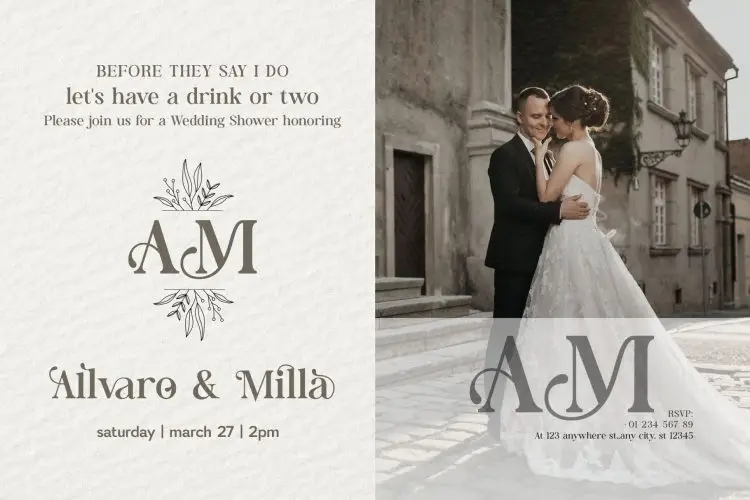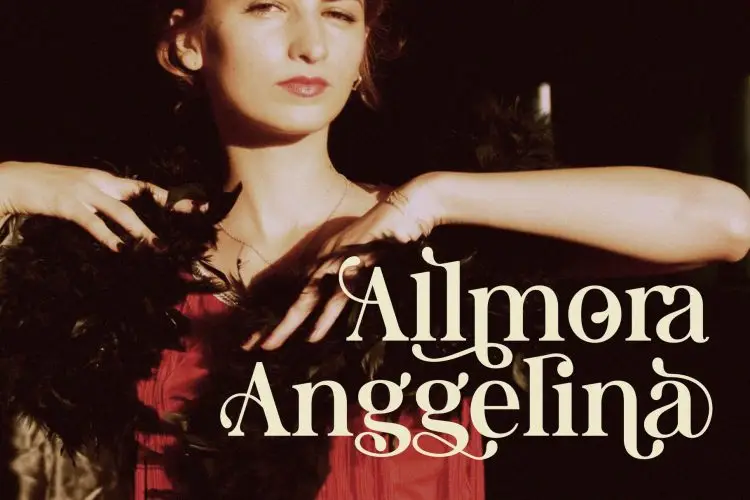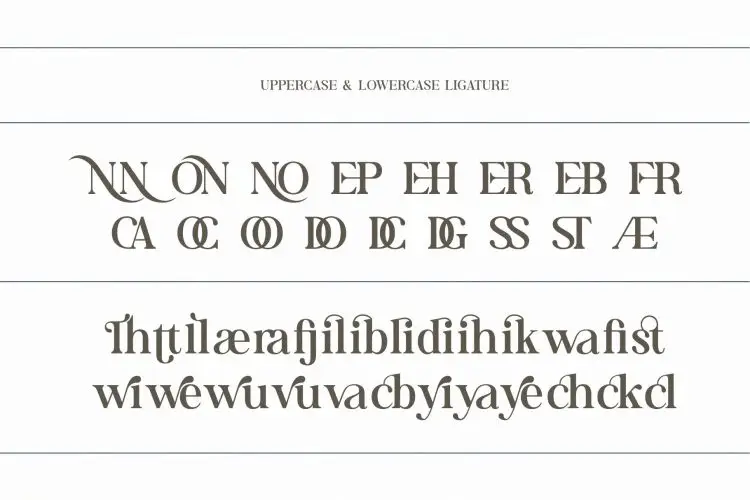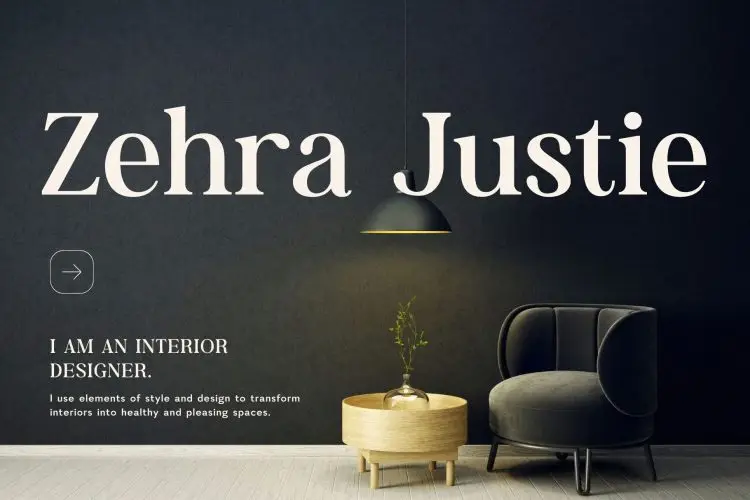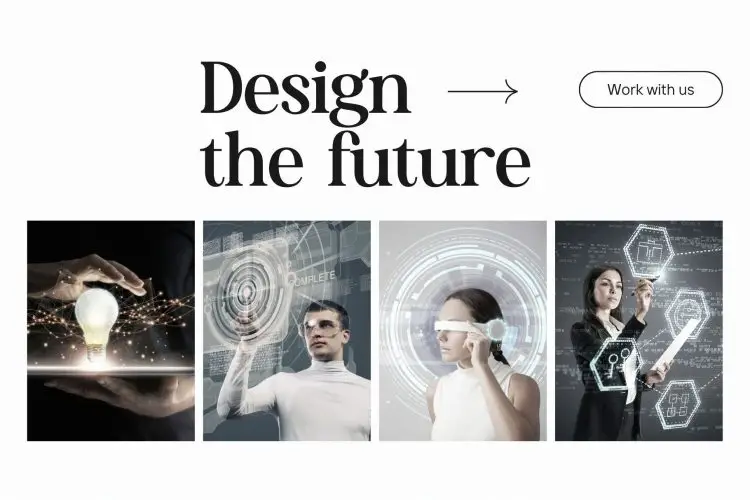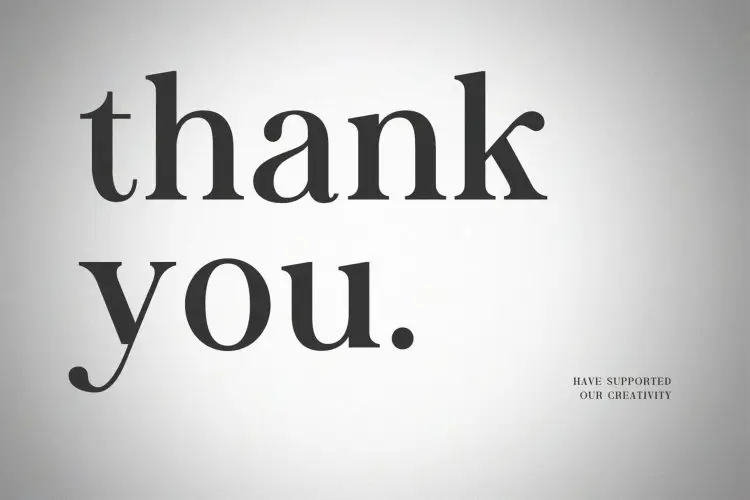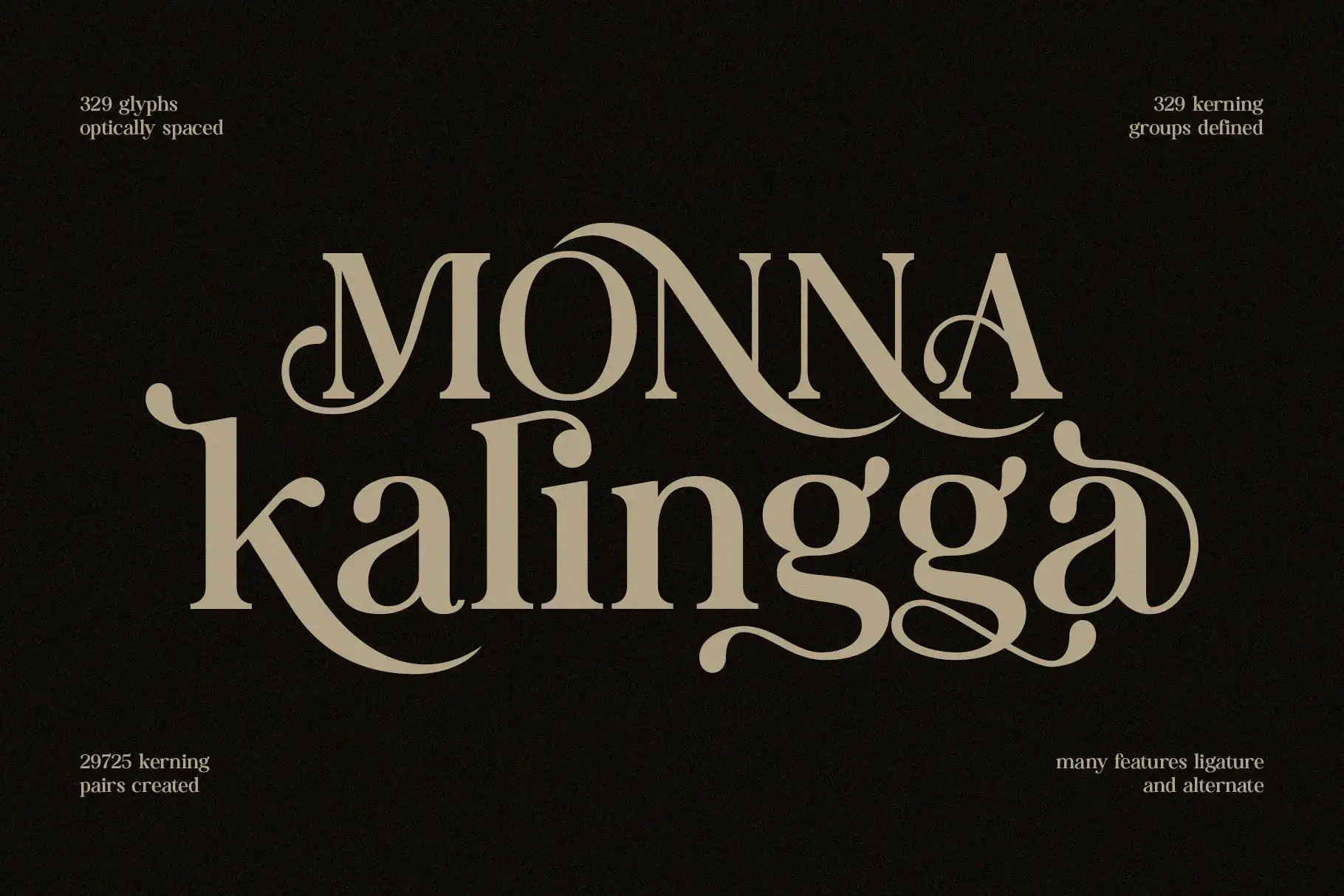
Monna Kalingga Decorative Serif Font
Monna Kalingga
Introducing Monna Kalingga: Decorative Serif Font
Discover Monna Kalingga, a decorative serif font crafted to elevate your creative projects. Its precise and elegant lettering, along with ligature and alternate features, gives you versatile options for every design. Perfect for invitations, business cards, web designs, and fashionable creations, Monna Kalingga transforms your work into visually captivating pieces.
Ideal for:
• Beauty and Fashion
• Elegant Creations
• Invitation card designs
• Web Designs
• Business Cards
Features:
• Ready for Creative Expression
• Immaculately Crafted Letters
Monna Kalingga is a decorative serif font with elegant letters and ligatures, ideal for invitations, branding, and creative projects.